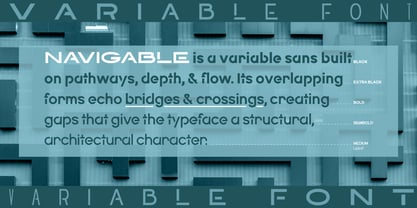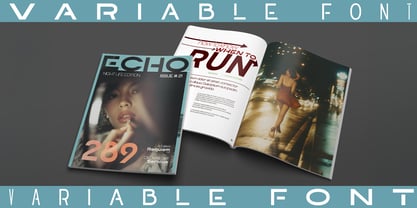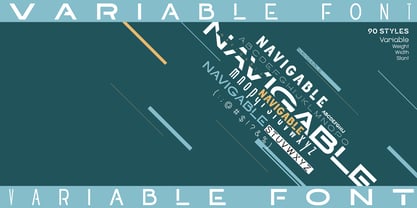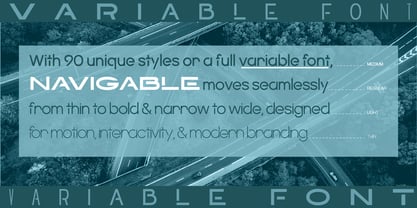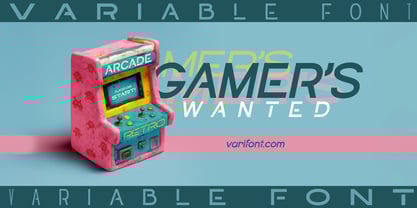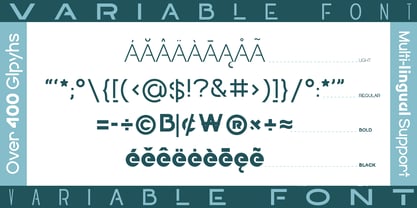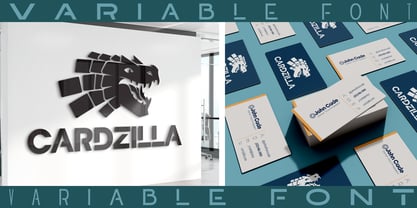
Navigable Variable
by Varifont
Navigable Variable is a modern sans-serif inspired by pathways, crossings, and the layered depth of architecture. Designed during a sabbatical after more than a decade of teaching typography, Navigable explores the idea of movement and structure — like roads and bridges seen from above. Its forms are clean, confident, and versatile, shifting between futuristic sharpness and approachable simplicity.
As a display face, Navigable commands attention while retaining strong legibility. It works beautifully in motion design, packaging, and branding — and has been used professionally in everything from packaging to digital advertising and motion branding. The family offers a wide expressive range, making it equally at home in bold headlines, sleek UI design, or dynamic interactive typography.
With 400+ glyphs, full multilingual support, extensive weight coverage, & italics. Navigable is built to adapt. Its superfamily flexibility gives designers the freedom to span across mediums, making it a reliable choice for projects that need both style and clarity.
Weights - Thin, Extra Light, Light, Regular, Medium, Semi Bold, Bold, Extra Bold, Black
Widths - Narrow, Condensed, Regular, Extended, Wide